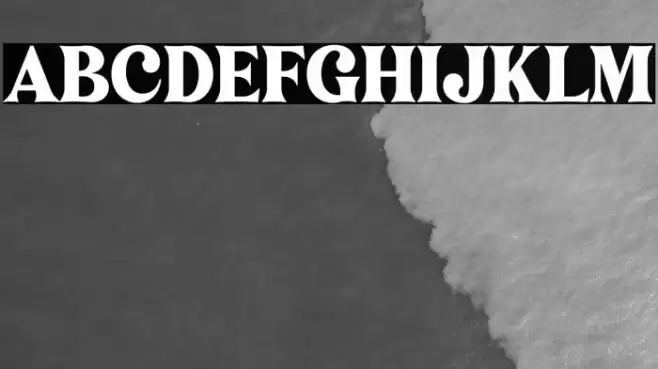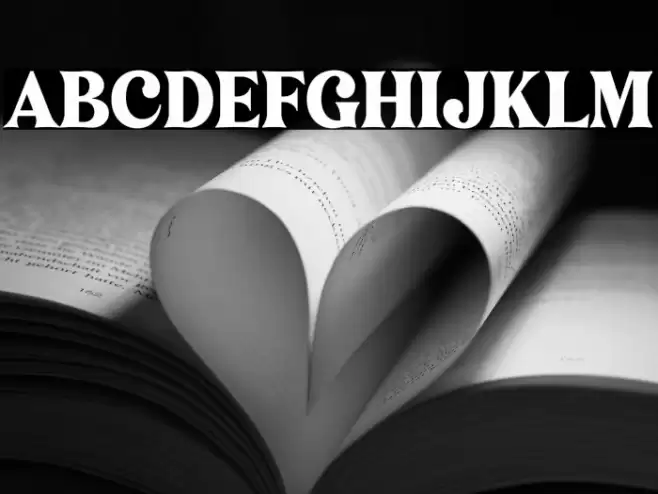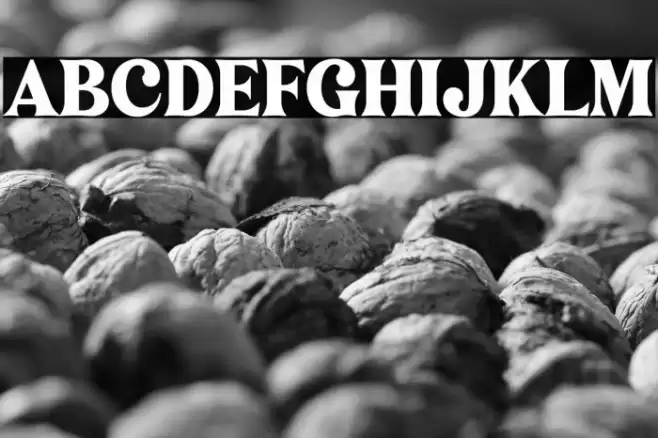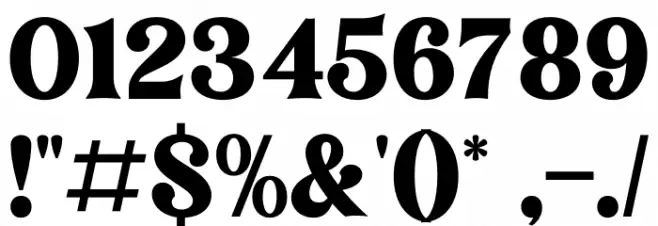
Narifah Font
Narifah Description
This font features a bold and dramatic style with high contrast between thick and thin strokes, giving it a strong visual impact. The serifs are pronounced and slightly curved, adding a touch of elegance and sophistication. The uppercase letters are robust and commanding, while the lowercase letters maintain a consistent weight, providing a balanced appearance. The numerals are clear and distinct, ensuring readability. Special characters are designed with the same boldness, making them stand out effectively. This font is ideal for making statements and capturing attention.
A bold, high-contrast serif font with dramatic strokes and elegant curves from Uncategorized fonts.
- Proposed Projects: Ideal for headlines, branding, posters, and editorial design where a strong, impactful presence is needed.
- Overall Style: Classic